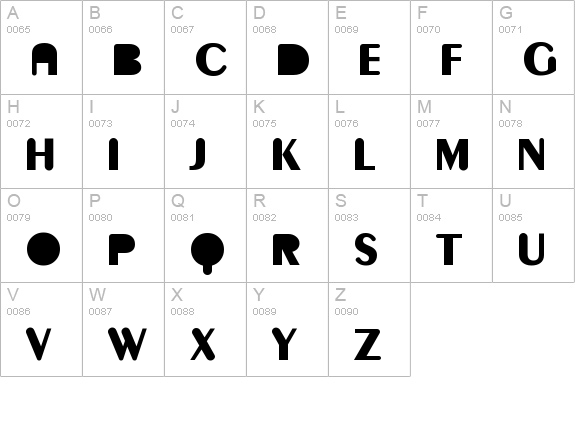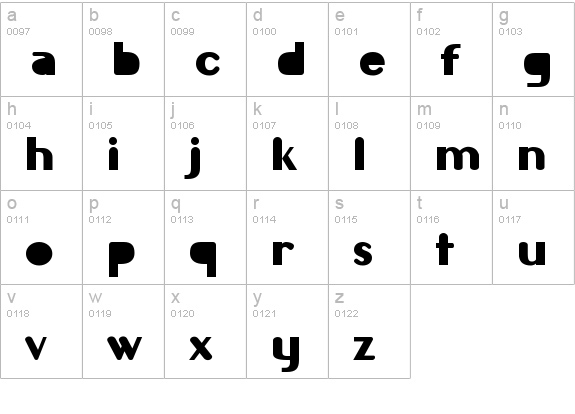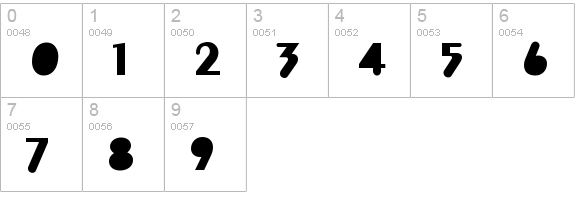
Gilgongo Mutombo is a unique and eye-catching font that exudes a sense of playful creativity and whimsy. With its bold and quirky letterforms, this font is sure to make a statement in any design project. This font is freely available to download at FontsMarket.com, making it easily accessible for designers and creatives looking to add a touch of fun to their work. Gilgongo Mutombo brings a sense of fun and individuality to any project, whether it's a poster, logo, or social media graphic. The versatility of Gilgongo Mutombo font allows it to be used in a variety of design contexts, from children's books to branding materials. Its unique character and charm will instantly captivate the audience and leave a lasting impression. Let Gilgongo Mutombo font unleash your creativity and bring a sense of joy to your designs.